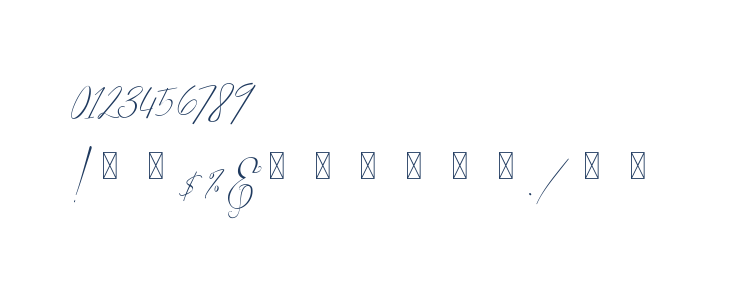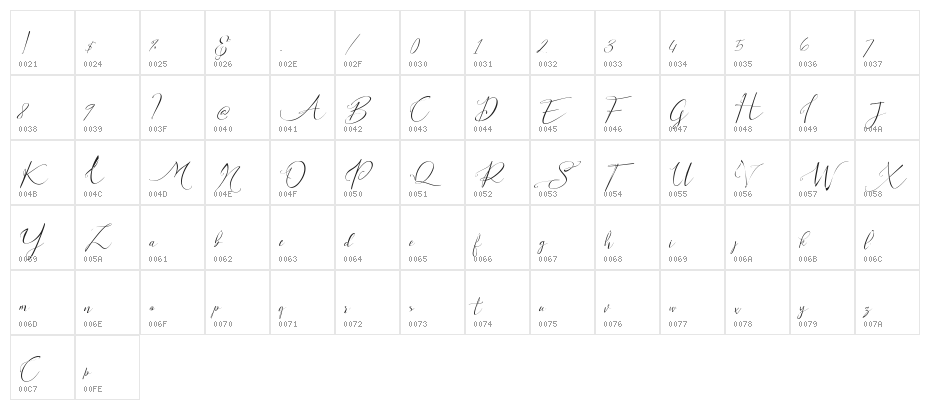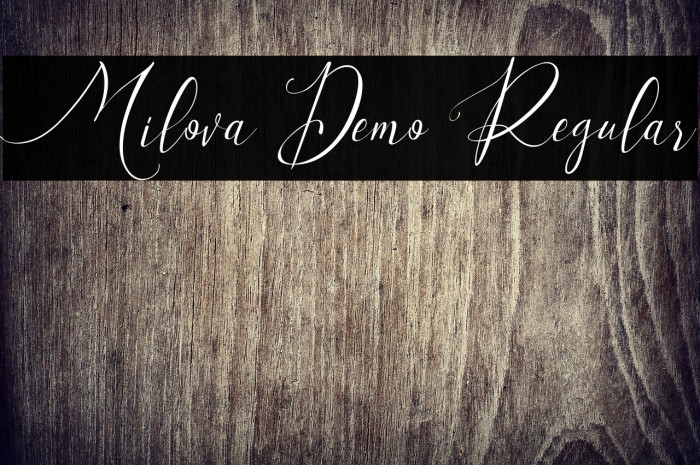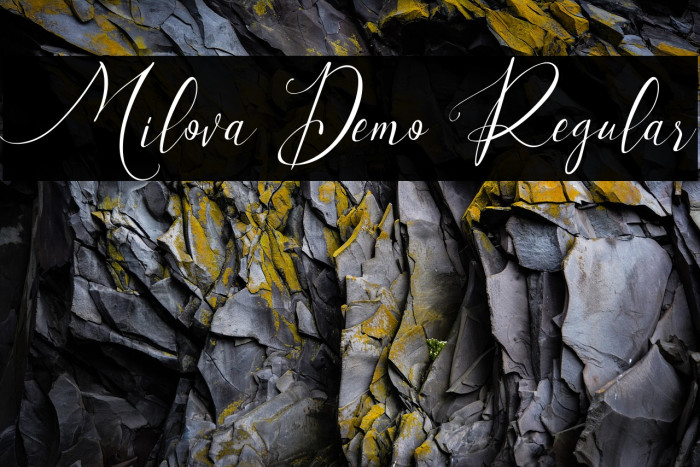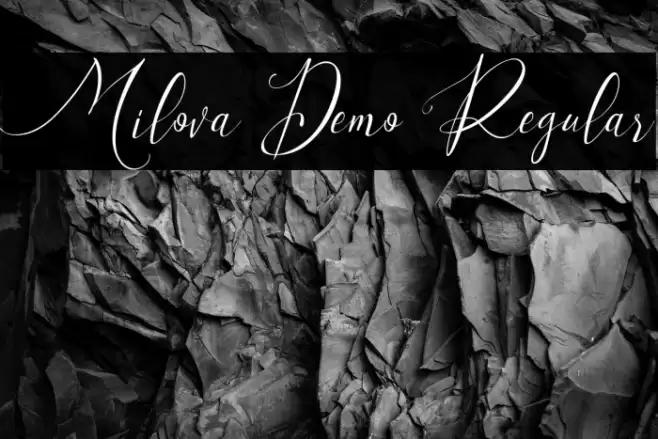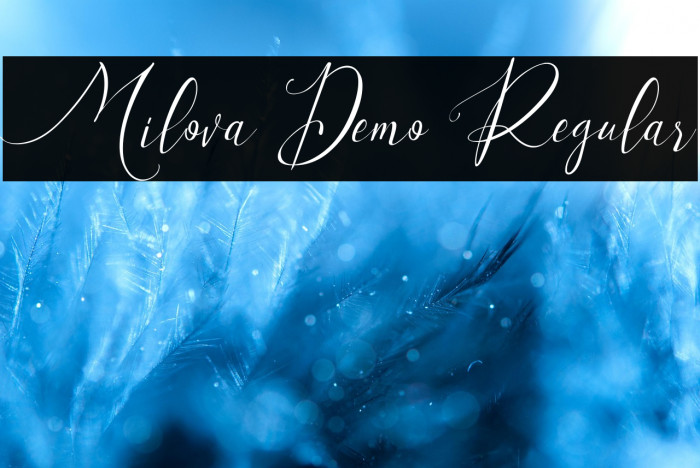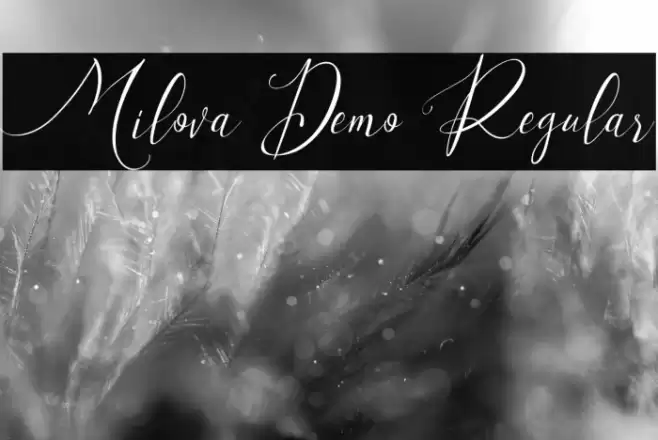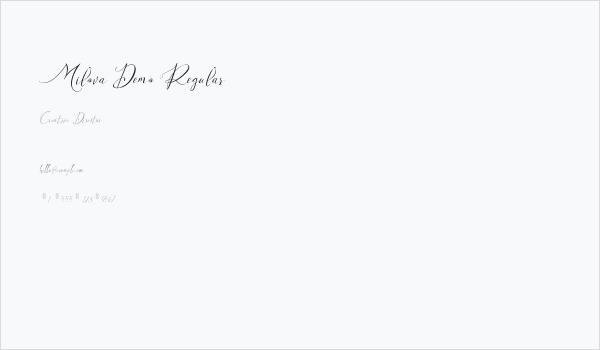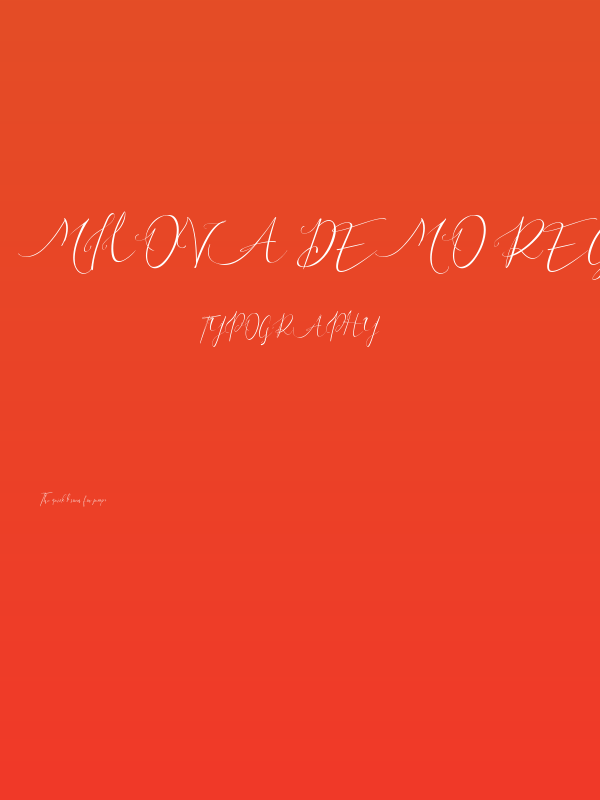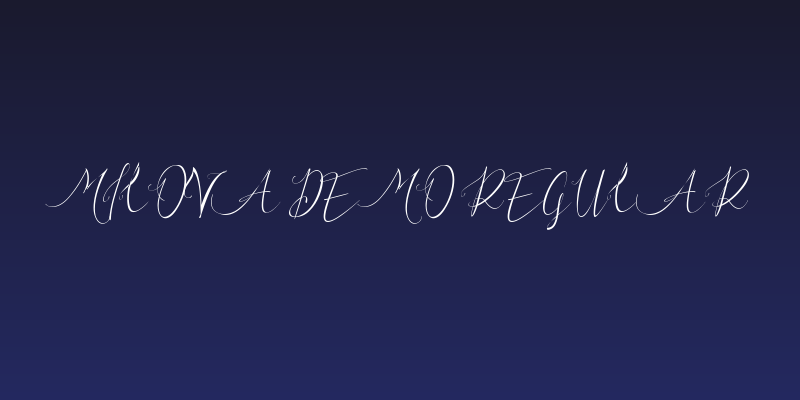
Milova Demo Regular Font
Milova Demo Regular Description
This elegant script font features graceful, flowing lines and a sophisticated style, making it ideal for formal invitations and branding. The uppercase letters are ornate with delicate swashes, while the lowercase letters maintain a fluid, connected appearance. The numerals and special characters complement the overall aesthetic, adding a touch of refinement. The font's high contrast between thick and thin strokes enhances its luxurious feel, making it perfect for projects that require a touch of elegance and class.
| Overall Style | Elegant, Sophisticated |
| Use Case | Headlines, Invitations, Branding |
| Proposed Projects | Perfect for wedding invitations, luxury branding, elegant logos, and high-end product packaging. |